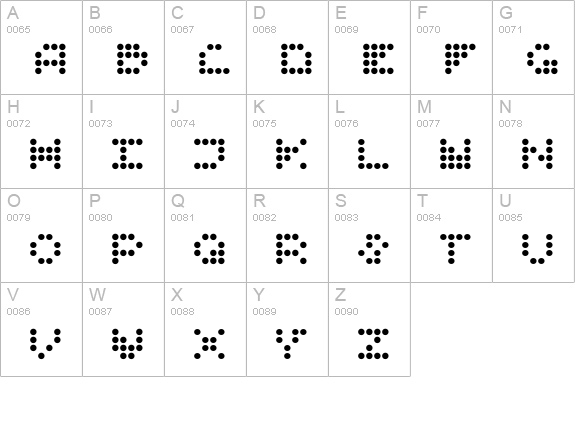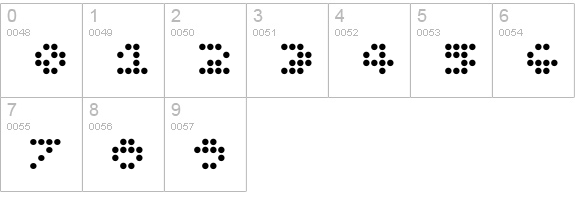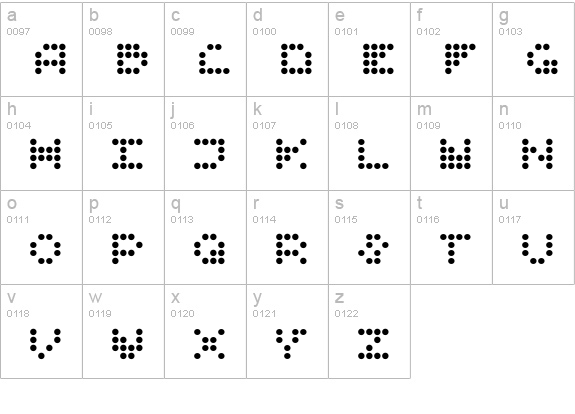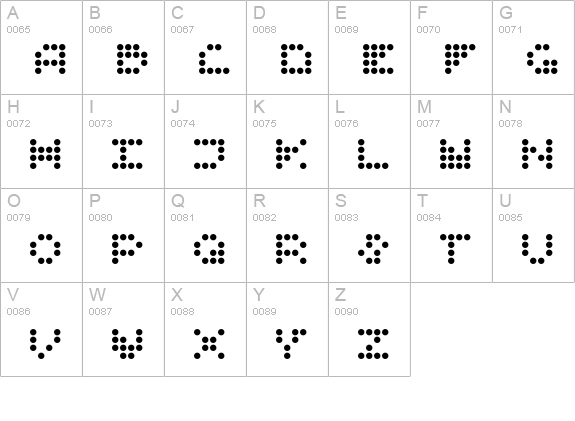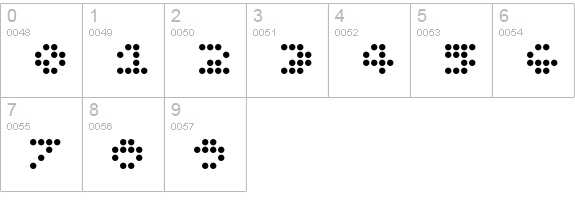
redshift Font Details
Introducing Redshift Font, a mesmerizing typeface that embodies the essence of modernity and sophistication. Designed with meticulous attention to detail, this font is sure to capture the attention of any viewer. With its sleek and bold letterforms, Redshift Font exudes confidence and power. Its unique curvature and distinctive angles create a visually striking composition, making it perfect for eye-catching headlines, logos, or branding projects. But what truly sets Redshift Font apart is its versatility. Whether you're designing for a futuristic sci-fi movie poster or a sleek tech company's website, this font seamlessly adapts to any project, effortlessly elevating the visual aesthetic. And the best part? Redshift Font is available for free! Download this font at FontsMarket.com, a trusted source for high-quality fonts. Now, you can bring your designs to life without breaking the bank. Unlock your creativity and explore the limitless possibilities that Redshift Font offers. Don't miss out on this opportunity to enhance your design arsenal with a one-of-a-kind font. Download Redshift Font today and experience the impact it can make on your creative endeavors.